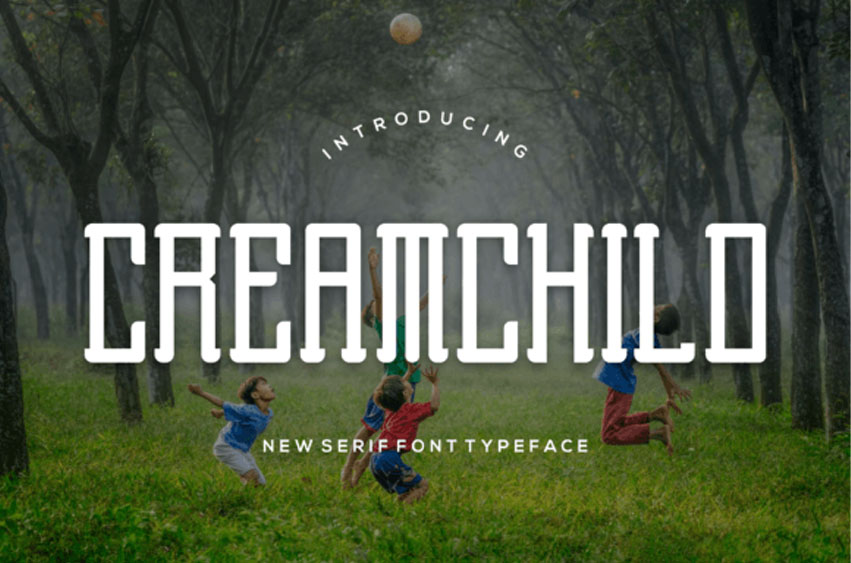
Creamchild Font
Creamchild Font is a cool and modern serif font. Its natural and unique style makes it incredibly fitting to a large pool of designs.